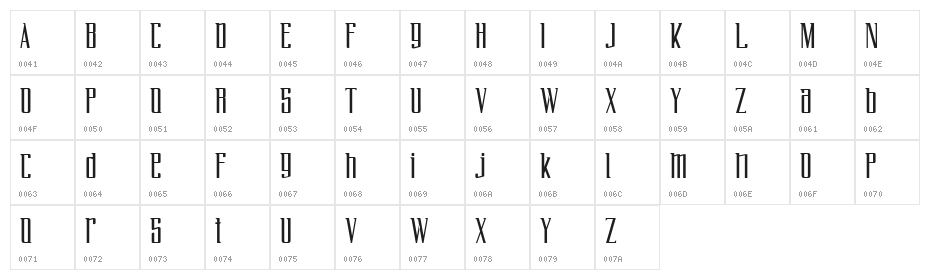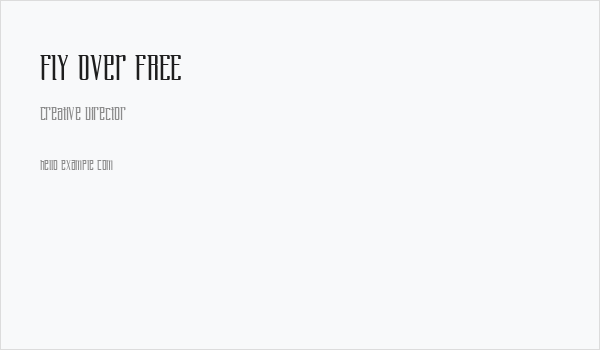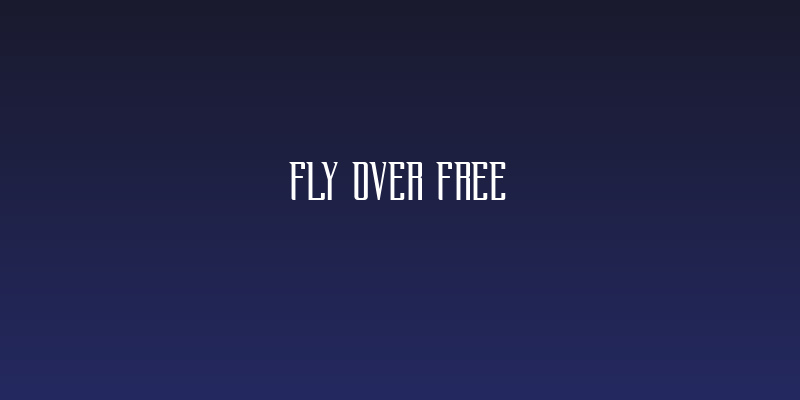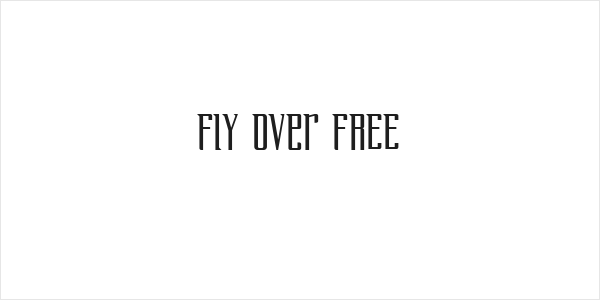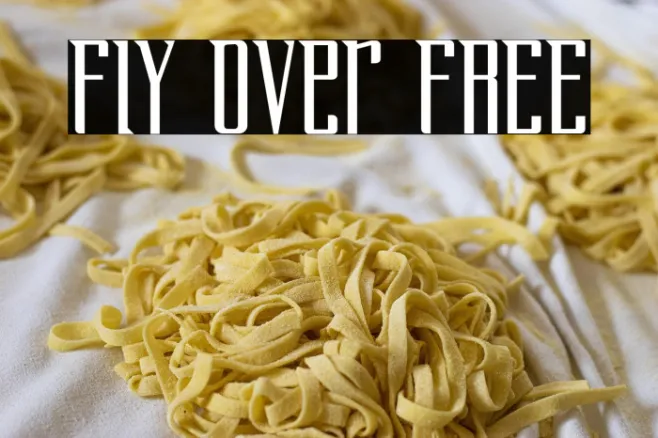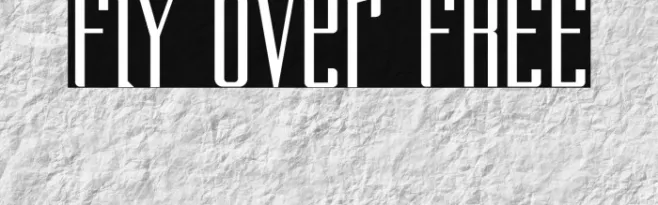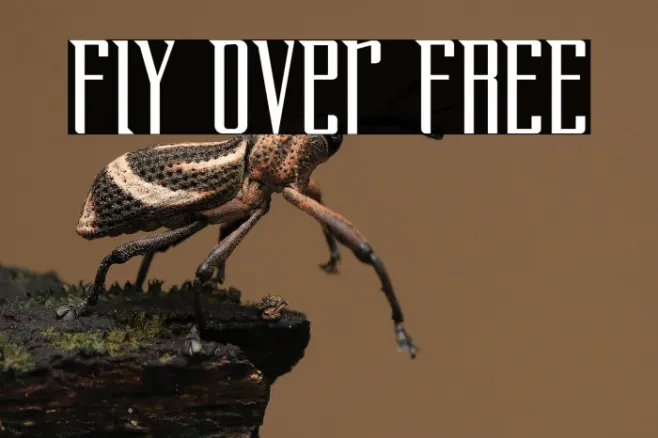
Fly Over FREE Font
Fly Over FREE Description
This font features a tall and narrow design with a distinct geometric influence. The characters are elongated with sharp angles, giving it a modern and edgy appearance. The uppercase letters are particularly striking, with a uniform height and consistent stroke width. The lowercase letters maintain the same angular style, creating a cohesive look across the typeface. The numerals and special characters follow the same design principles, ensuring a seamless integration with the alphabet. This font's unique style makes it stand out, suitable for projects that require a bold and contemporary aesthetic.
| Proposed Projects | Ideal for branding, posters, headlines, and any design needing a modern, edgy look. |